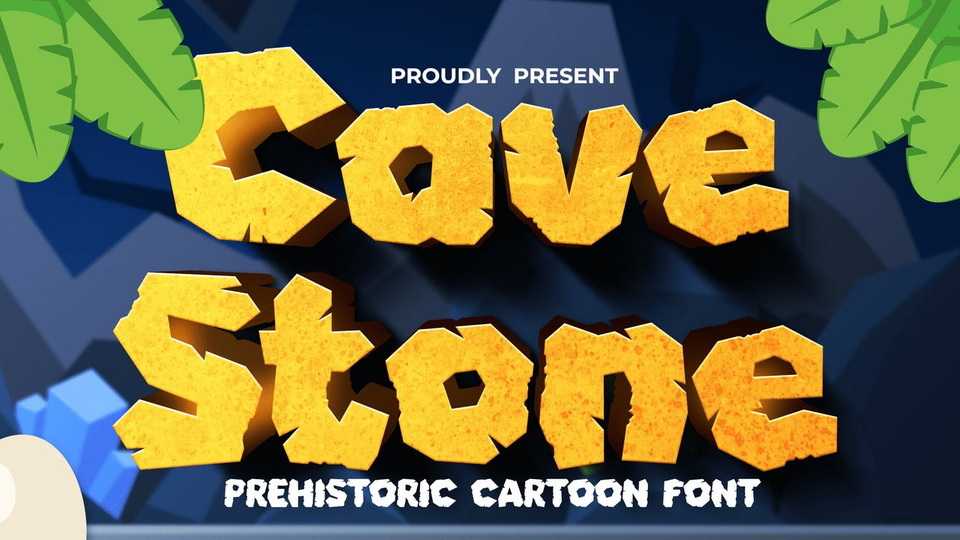
Download Cave Stone font, a prehistoric cartoon typeface It looks like from a prehistoric era, where dinosaurs, mammoths, and all that giant animals still roaming the ice world. Cave Stone bring all those memories come back to life.